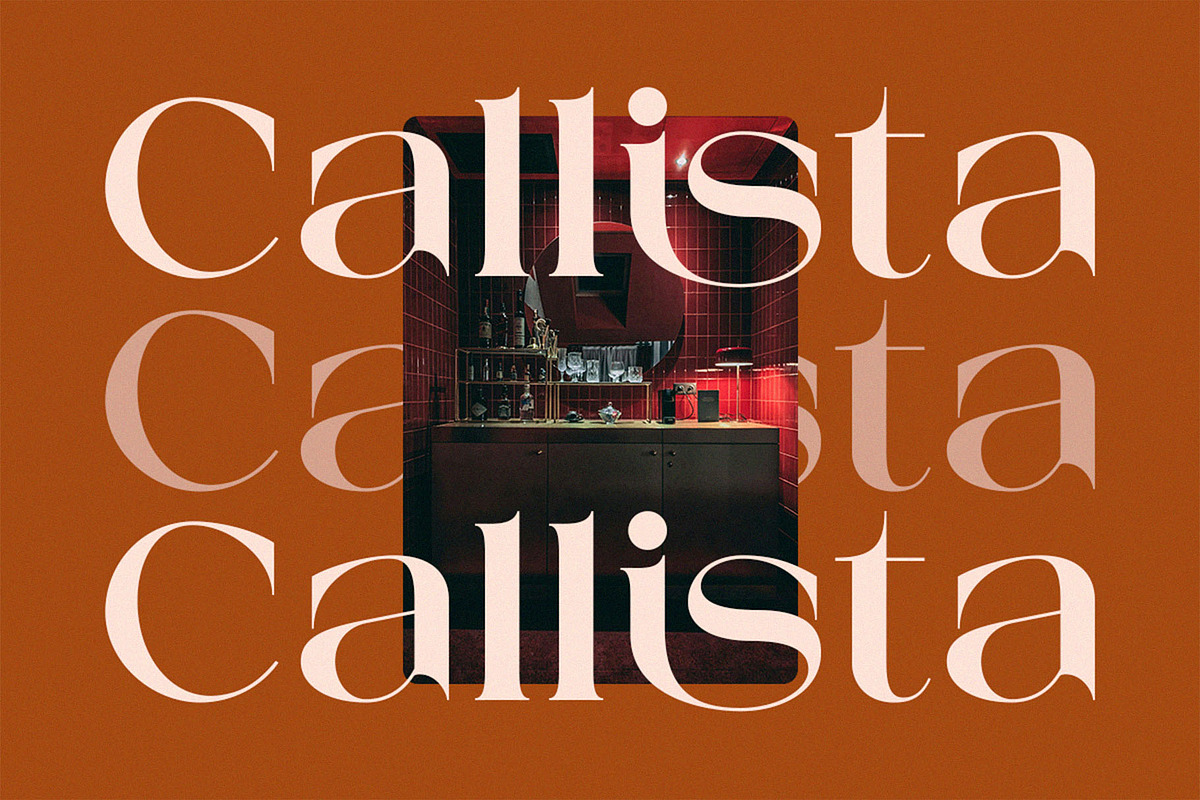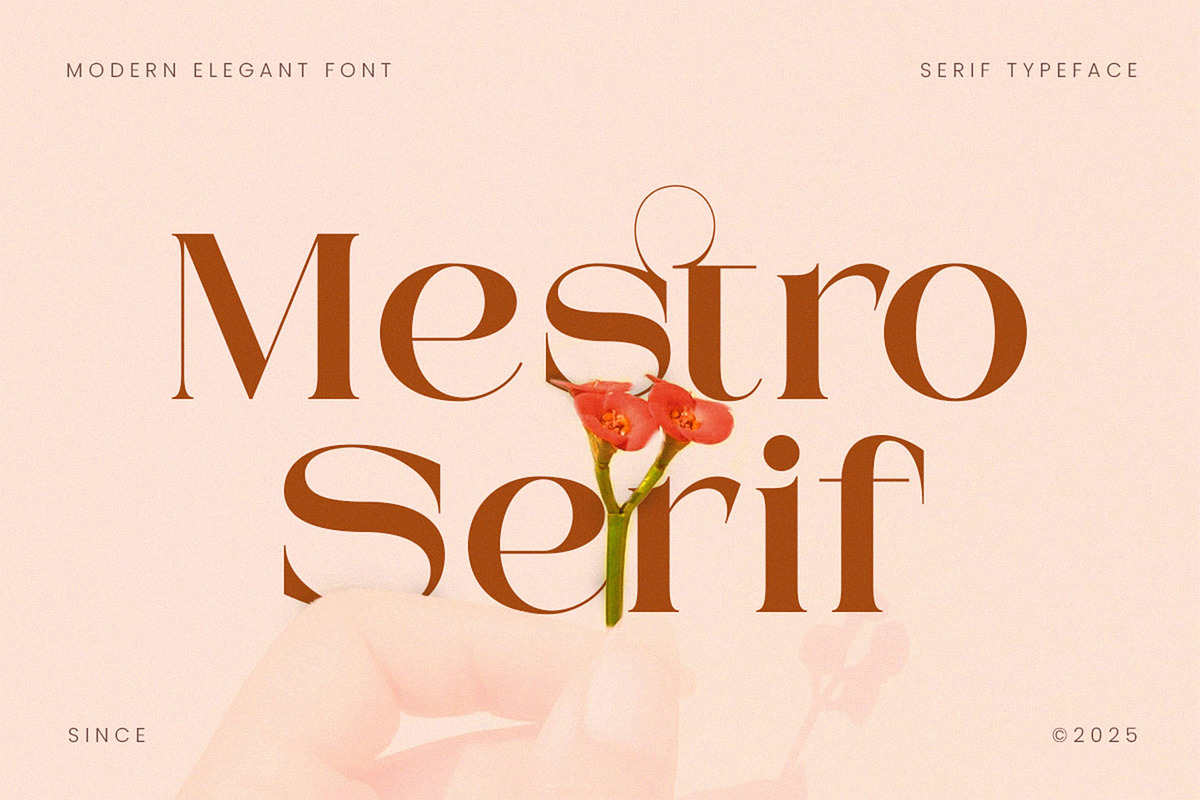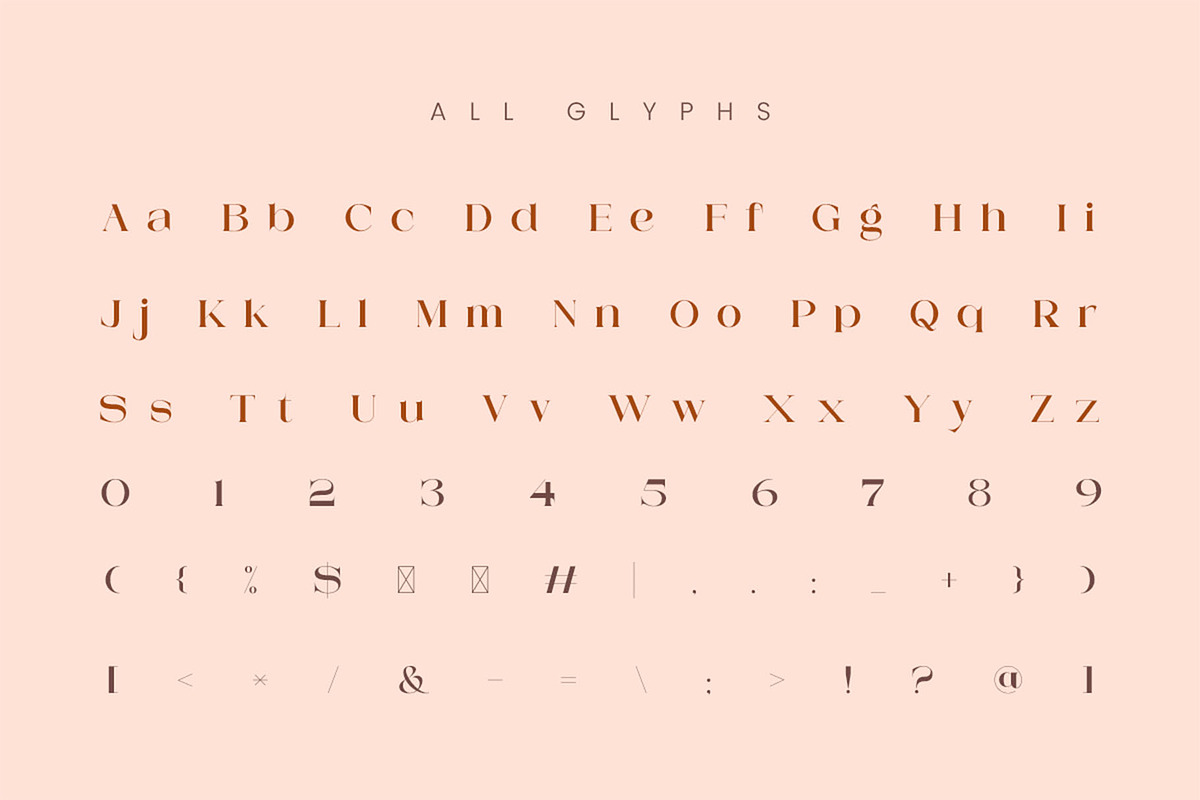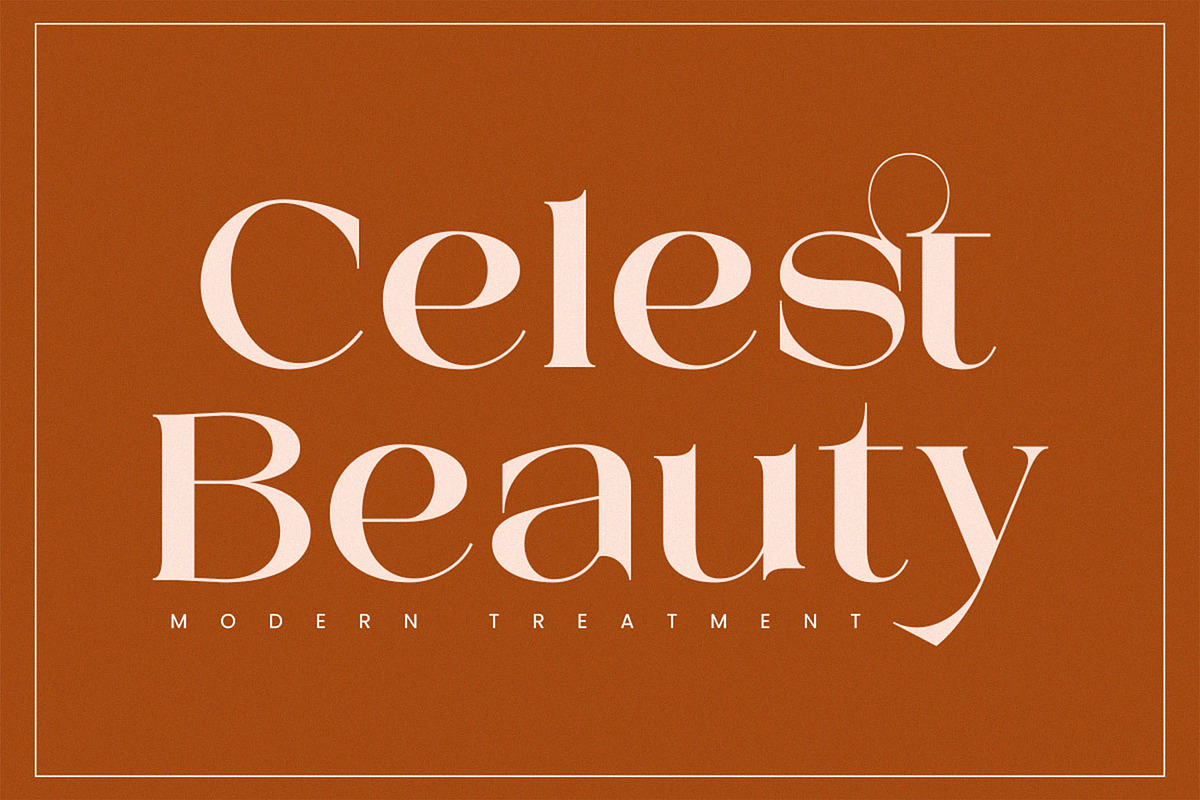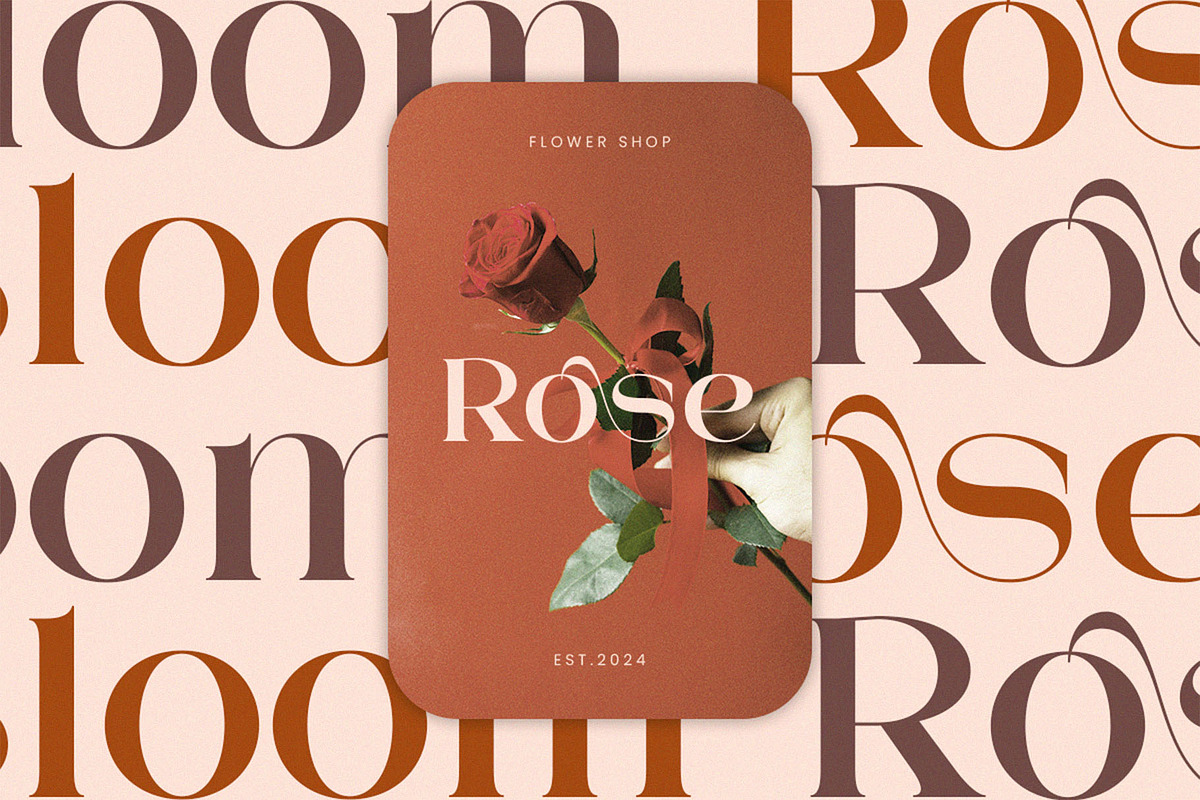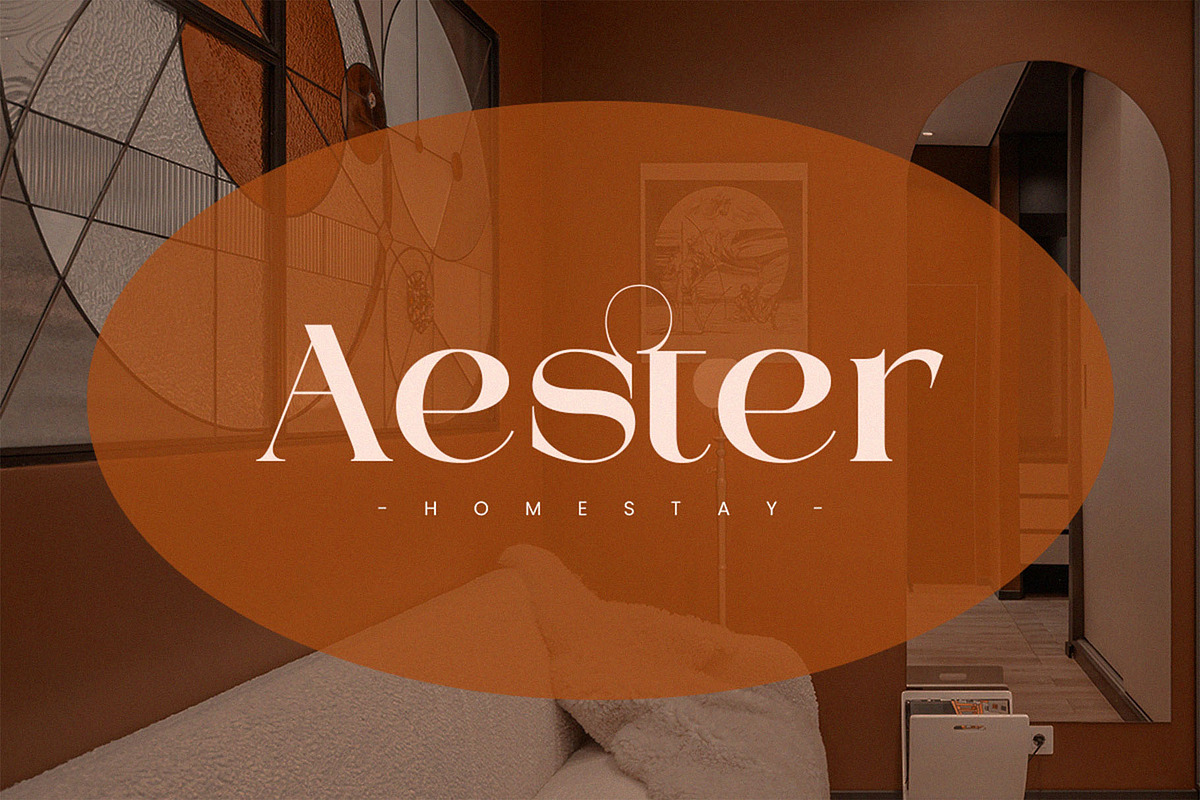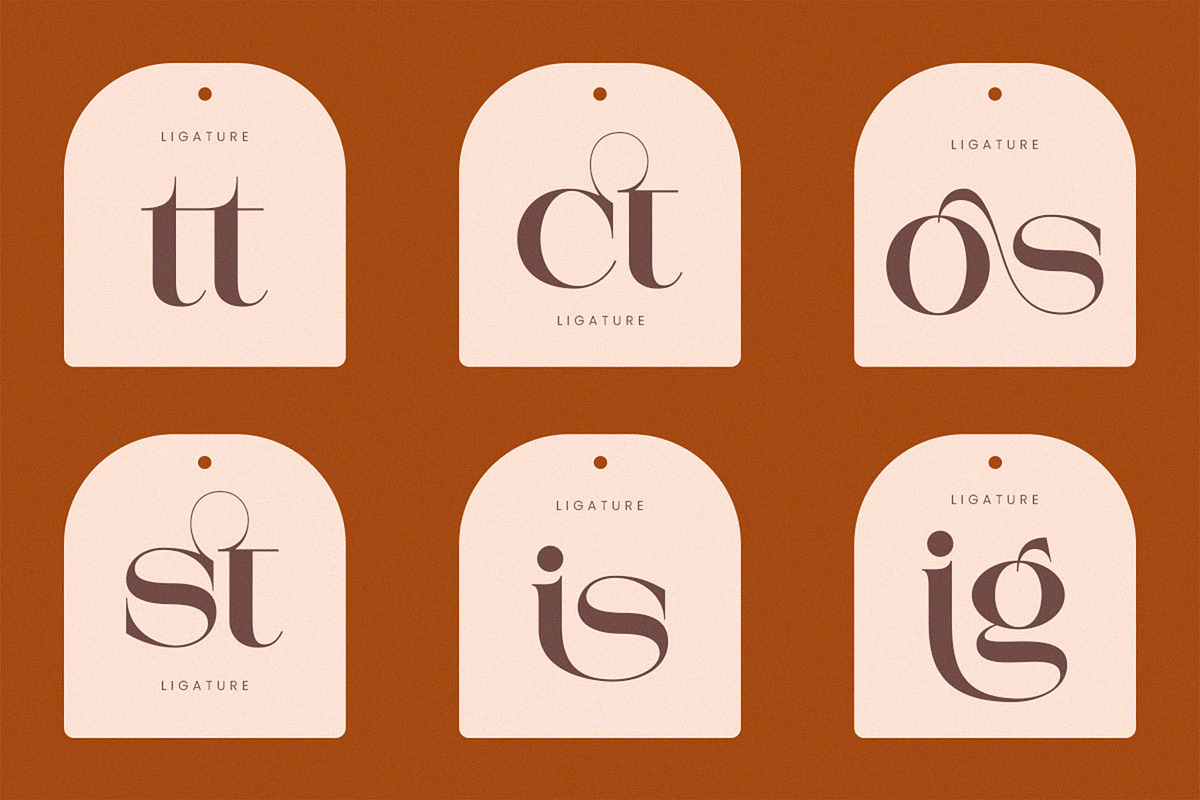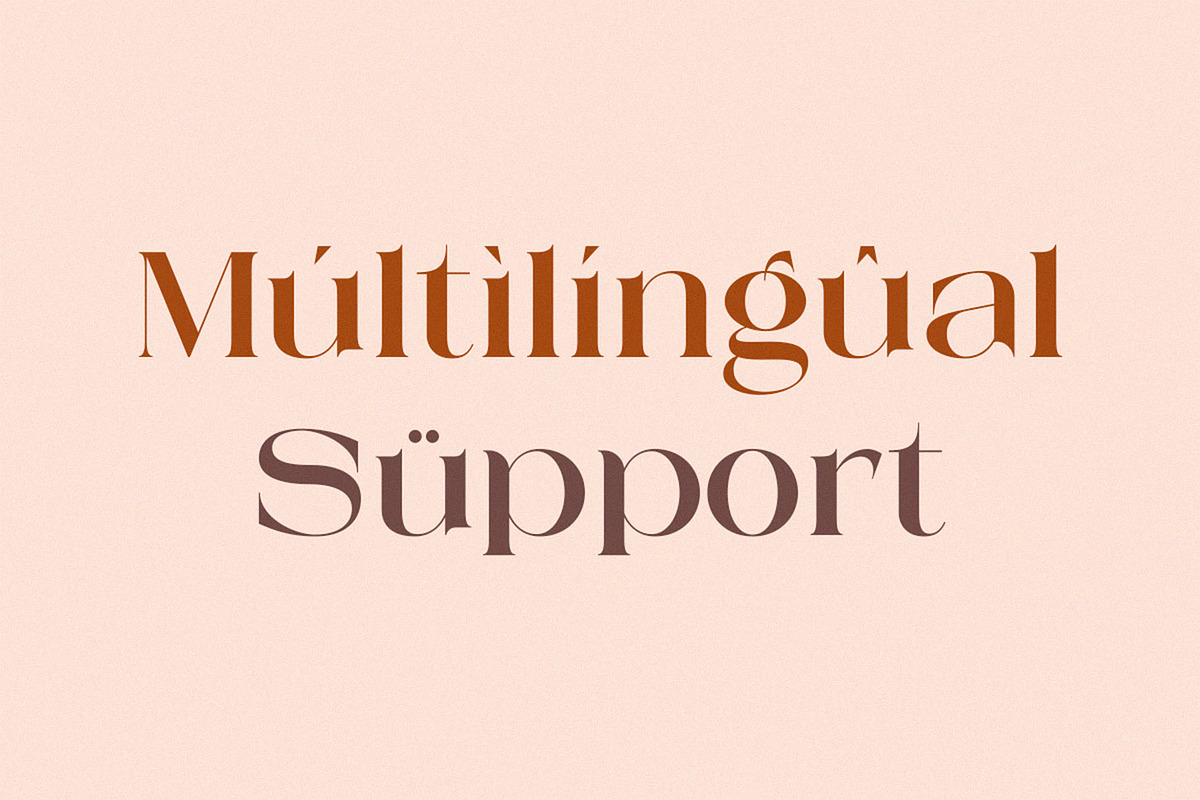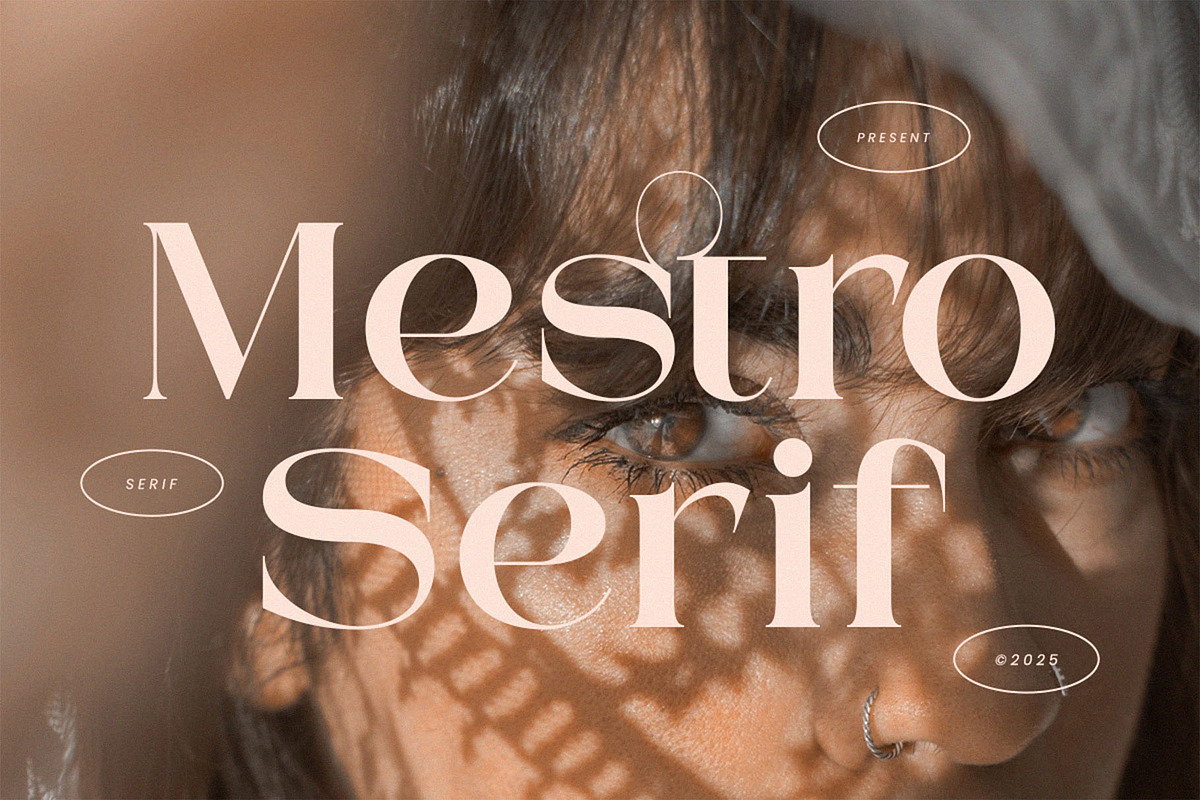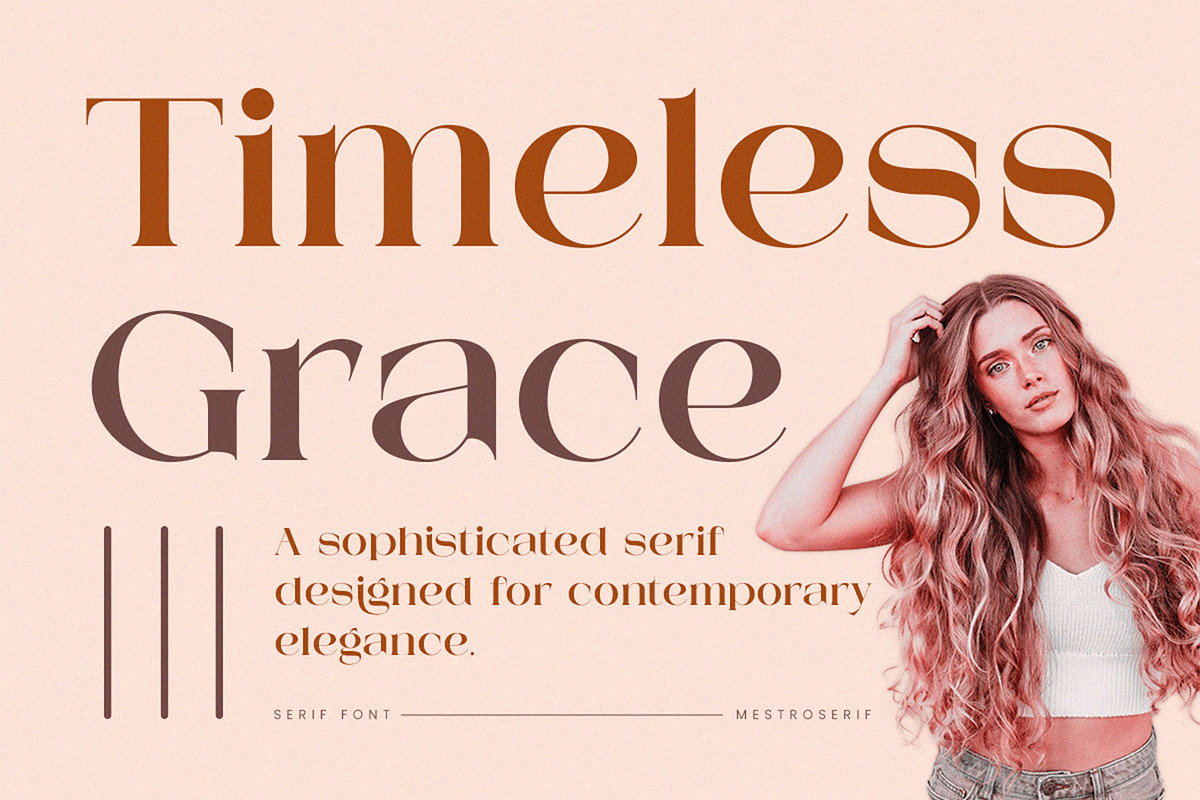
Mestro Serif || Modern Ligature
Mestro Serif – Modern Classic Serif by Toni Studio Introducing Mestro Serif, a modern serif that blends classic touches with contemporary aesthetics. Designed with subtle contrasts, graceful curves, and elegant details, Mestro Serif delivers a premium character suitable for a variety of visual design needs. This font is designed to stand out in branding, logos, packaging, editorials, wedding invitations, and even social media. Mestro Serif is a single-style font that focuses on beauty of form and ease of use. Why You'll Love Mestro Serif The perfect blend of modern minimalism and classic sophistication Ideal for professional branding, feminine design, elegant packaging, and clean editorial Files Included : - Mestro Serif.otf - Mestro Serif.ttf - Mestro Serif.woff . Alternates & Ligatures for more natural and refined letter connections . PUA Encoded, access to full glyphs without additional software . Multilingual Support Works seamlessly in Canva, Photoshop, Illustrator, Procreate, Cricut, Silhouette, and other software If you have any questions before or after your purchase, please don't hesitate to contact us; we're happy to help. Thank you for choosing Toni Studio